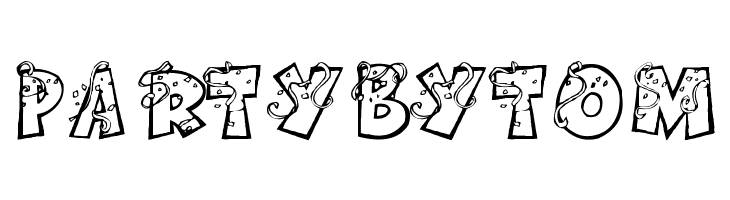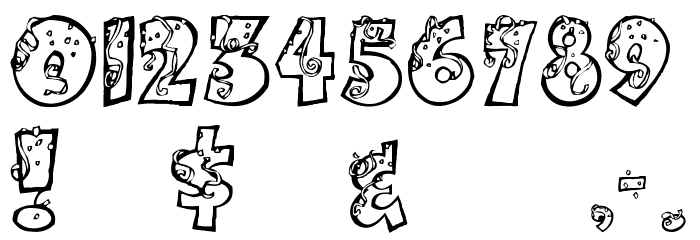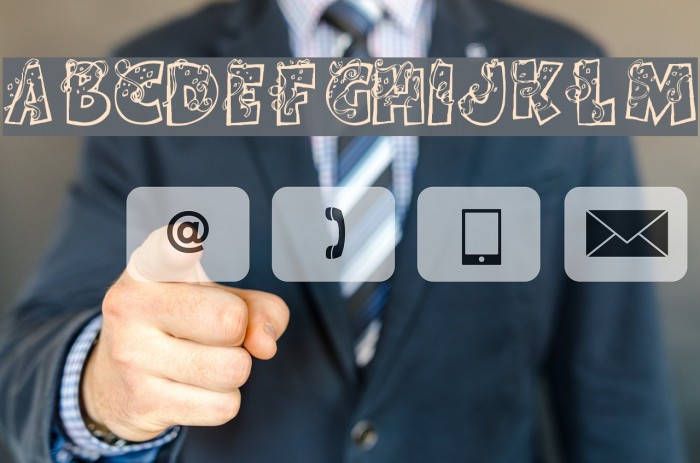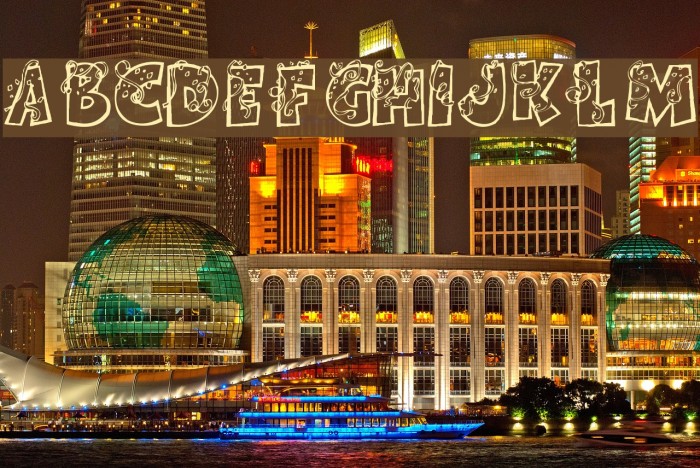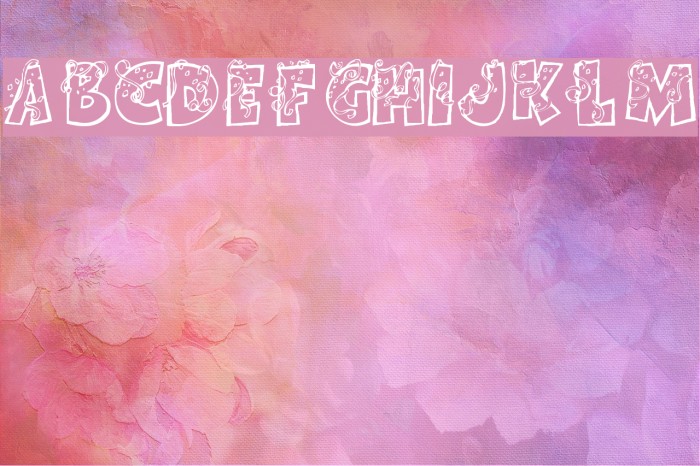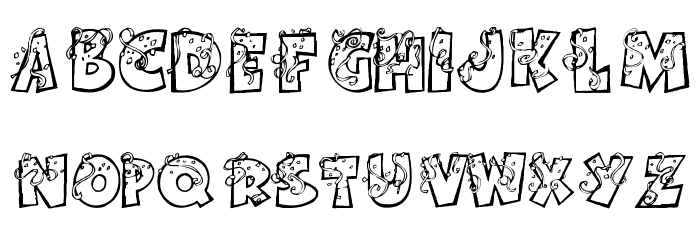
PartybyTom Font
PartybyTom Description
This font is a playful and whimsical display typeface, characterized by its bold, cartoonish letters adorned with decorative elements like swirls and dots. Each character is uniquely styled, giving it a lively and festive appearance. The font's thick outlines and filled interiors create a strong visual impact, making it ideal for eye-catching designs. The playful nature of the font is enhanced by its irregular shapes and dynamic forms, which convey a sense of fun and creativity. This typeface is perfect for projects that aim to capture attention and evoke a sense of joy and celebration.
| Proposed Projects | Ideal for party invitations, children's book covers, playful branding, and festive posters. |